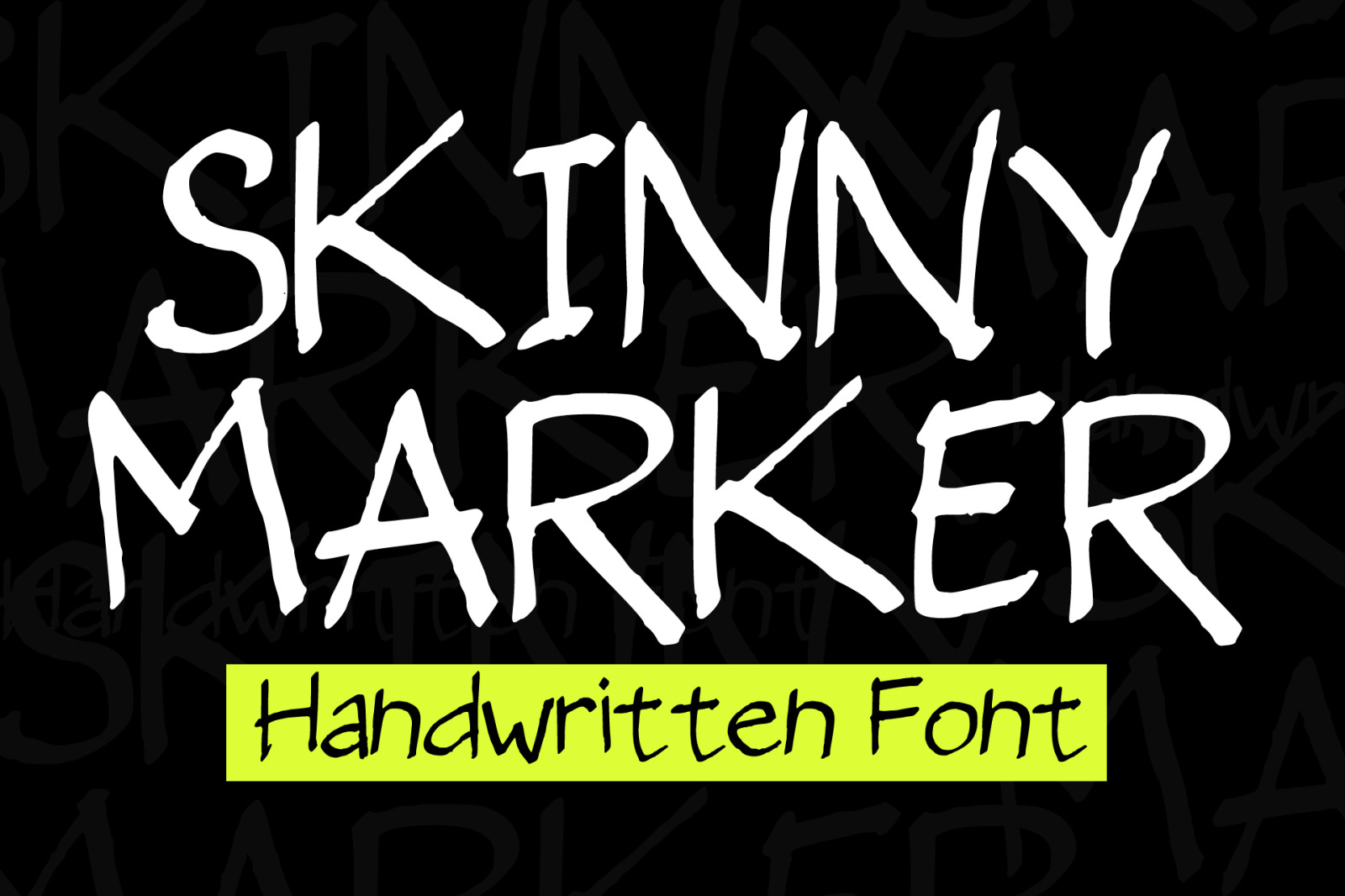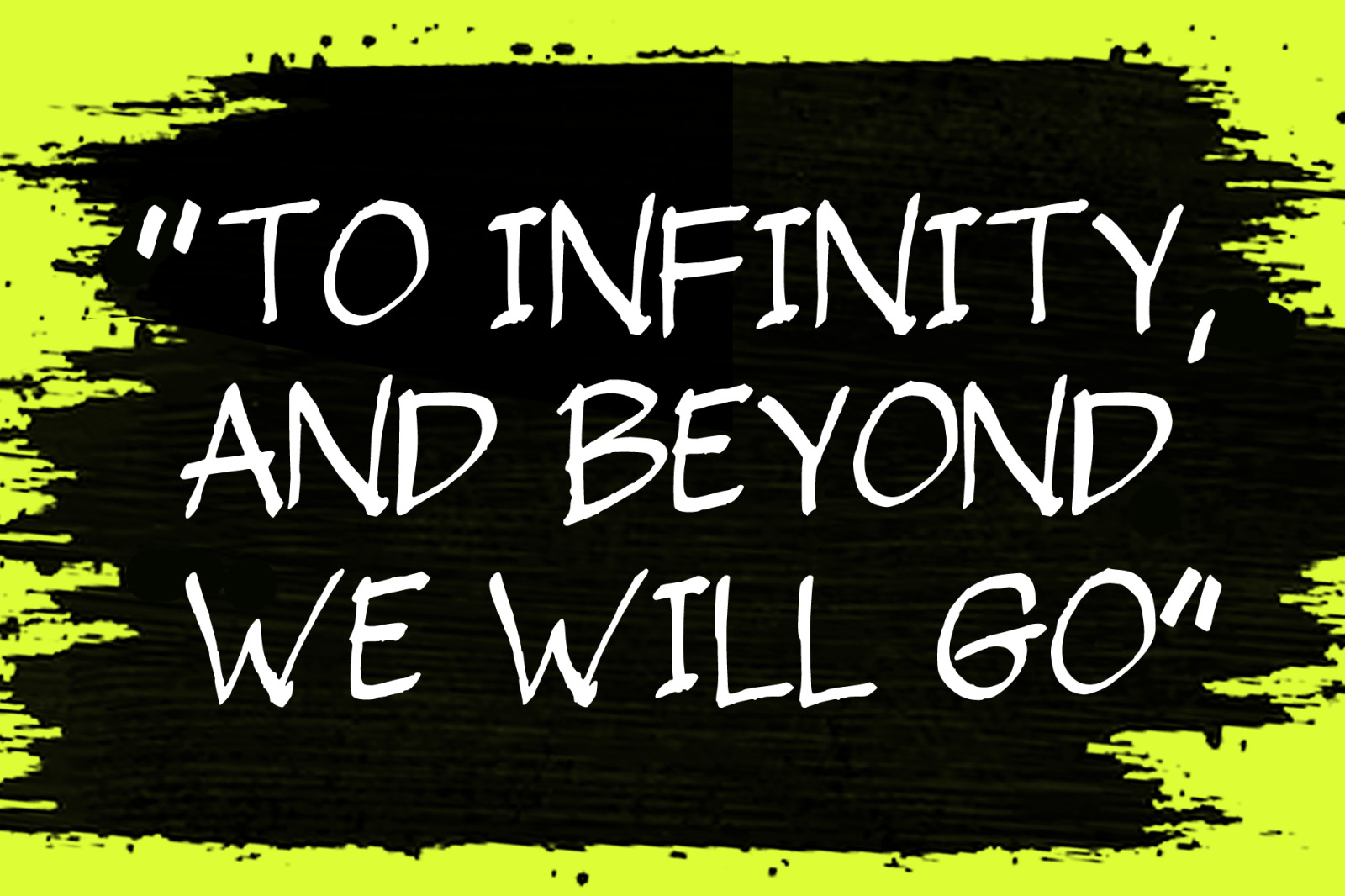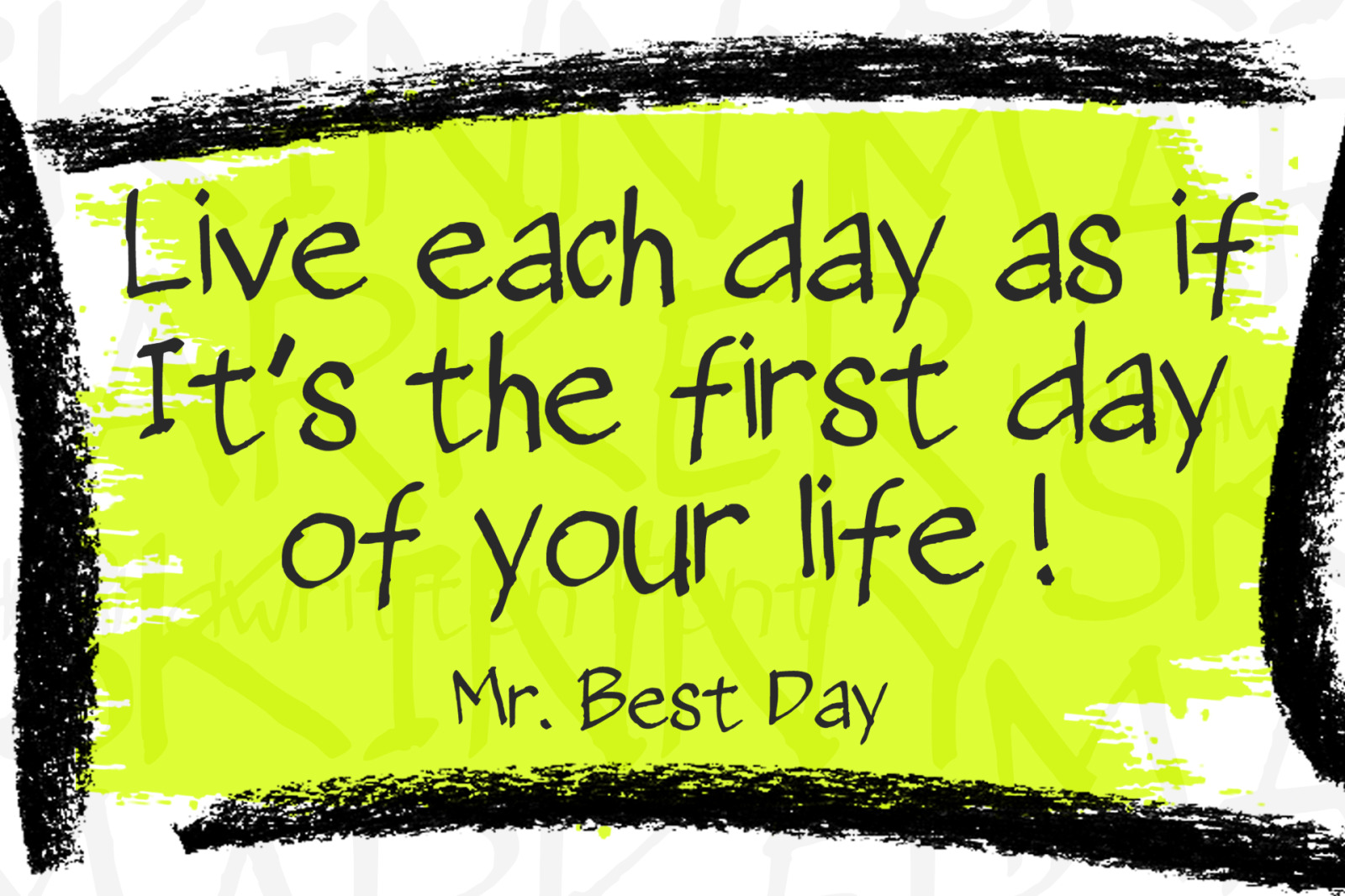
Skinny Marker Font
Skinny Marker is a cool handwritten font, inspired by quick graffiti tags seen on streets. It will elevate a wide range of design projects to the highest level. You can use this font for many design ideas such as stickers, t-shirt designs, amazing logo designs, magazine or book covers, comics, cartoon drawings, and many more. This font will add a cool touch to your designs!